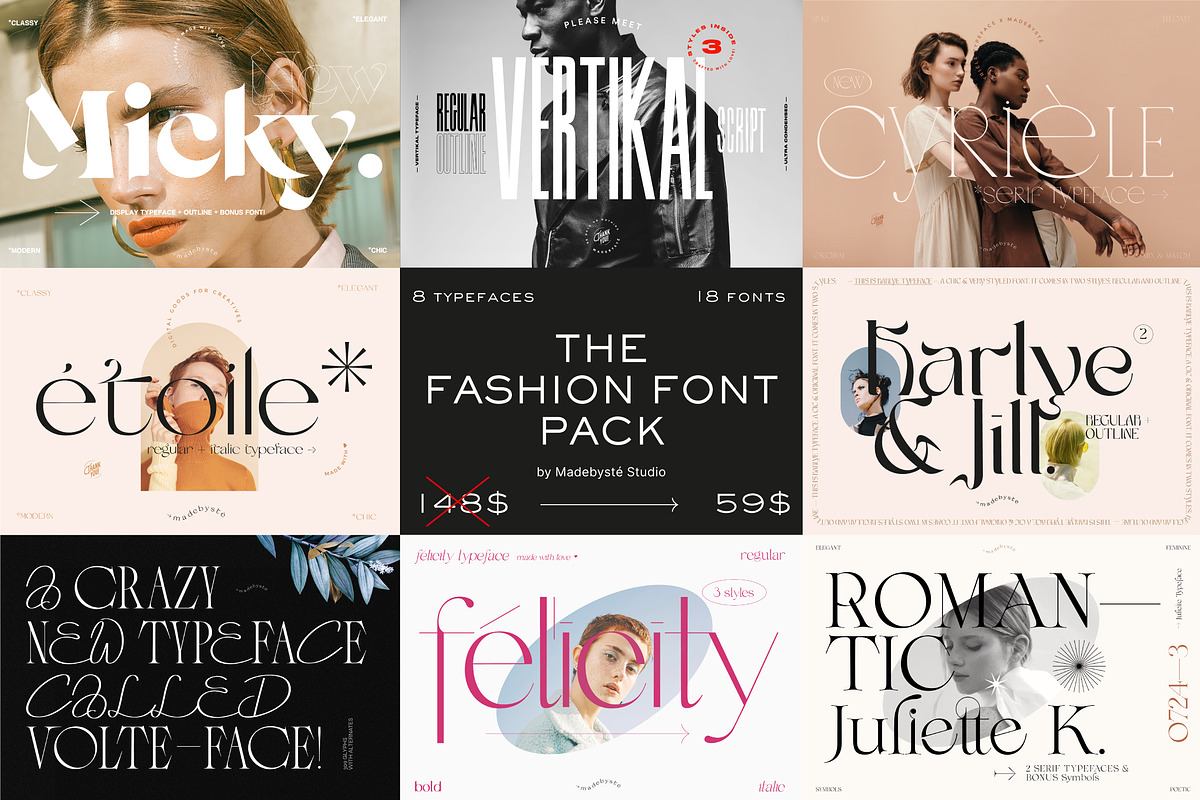
THE FASHION FONT PACK - Bundle of 8 Free Download
THE FASHION FONT PACK - Bundle of 8 Free Download is a comprehensive collection of 8 stylish and versatile fonts, perfect for any fashion or lifestyle project. Whether you're working on branding, logos, websites, or advertisements, this bundle offers a variety of fonts to suit any modern design needs. From elegant scripts to bold display fonts, this pack provides endless possibilities for your creative work.